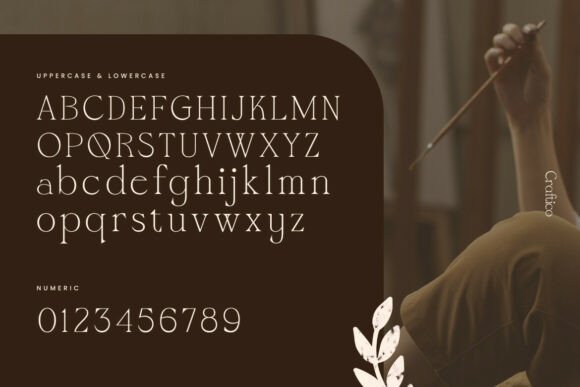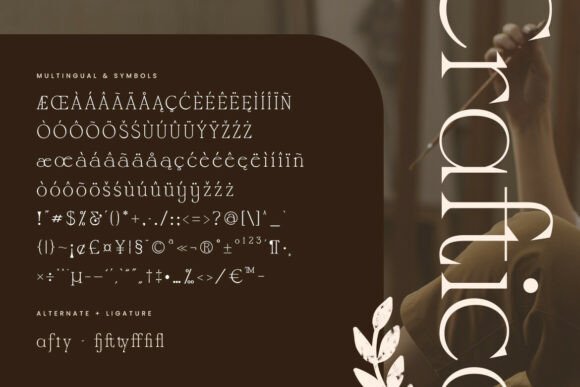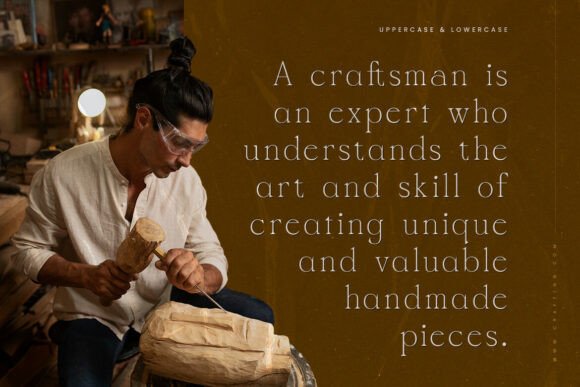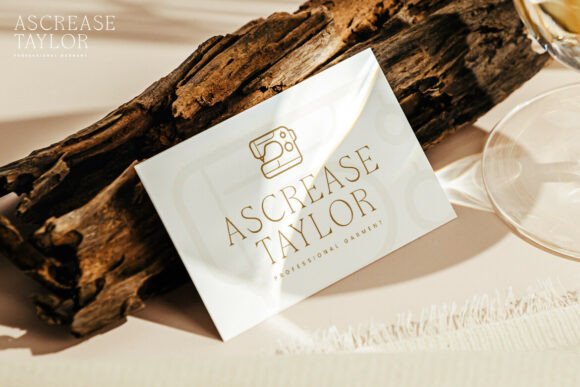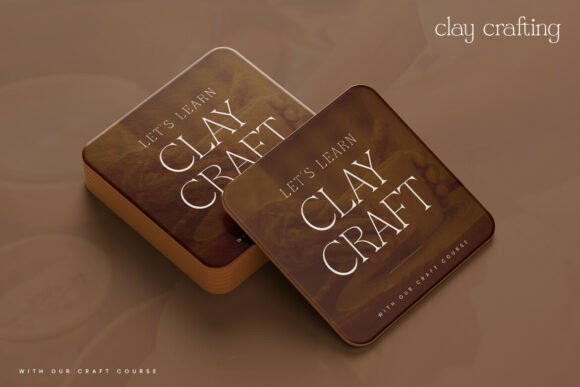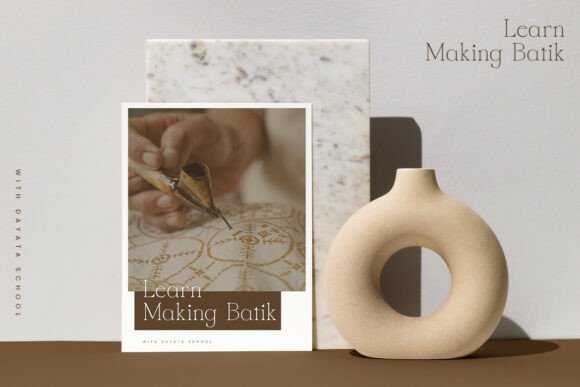
Craftico Font: Elevate Your Designs with Elegance and Sophistication
In the world of typography, fonts play a crucial role in conveying the tone and aesthetic of a design. For those seeking to infuse their projects with a sense of luxury, sophistication, and timeless elegance, Craftico Font emerges as an exceptional choice. This article introduces Craftico, an elegant serif font that is poised to become the cornerstone of your design endeavors, offering a perfect blend of classic beauty and modern appeal.
The Essence of Craftico Font
Craftico Font is meticulously crafted to bring a touch of luxury and grace to all your design projects. Its design is characterized by sleek lines, delicate serifs, and a graceful contrast between thick and thin strokes. This thoughtful design approach enables Craftico to exude a sophisticated aura that is both captivating and enduring. Whether you’re working on branding, advertising, packaging, or digital content, Craftico Font provides the perfect typographic solution to elevate your designs.
Key Features of Craftico Font
- Elegant Serif Design: Craftico boasts a classic serif design that lends an air of sophistication and refinement to any project.
- Sleek Lines and Delicate Serifs: The font’s sleek lines and delicate serifs contribute to its luxurious feel, making it ideal for high-end designs.
- Contrasting Strokes: The graceful contrast between thick and thin strokes in Craftico adds depth and elegance, ensuring your designs stand out.
- Timeless yet Modern: Craftico strikes a perfect balance between timeless classic beauty and modern typographic trends, making it versatile for various design applications.
Applications of Craftico Font
Craftico Font’s versatility and elegance make it suitable for a wide range of design projects. Here are some of the key areas where Craftico can make a significant impact:
- Branding and Logo Design: Use Craftico to create a lasting impression with a sophisticated and luxurious brand identity.
- Advertising and Marketing Materials: Elevate your advertising and marketing materials with a font that communicates elegance and refinement.
- Packaging Design: Add a touch of luxury to your product packaging, making it stand out on the shelves.
- Digital Content: Enhance your digital platforms, such as websites and social media, with a font that offers a perfect blend of classic and modern aesthetics.
Why Choose Craftico Font?
In a market flooded with numerous font options, Craftico Font distinguishes itself through its unique blend of elegance, sophistication, and versatility. Here are a few reasons why designers and crafters should consider Craftico for their projects:
- Unique Aesthetic: Craftico offers a distinct aesthetic that can help your designs stand out from the competition.
- High Versatility: The font’s design makes it suitable for a wide range of projects, from print to digital media.
- Easy to Read: Despite its elegant and delicate features, Craftico maintains excellent readability, ensuring your message is conveyed effectively.
Craftico Font is more than just a typeface; it’s a design statement that can elevate your projects to new heights of elegance and sophistication. With its sleek lines, delicate serifs, and the graceful contrast between thick and thin strokes, Craftico is poised to become your go-to font for designs that demand a touch of luxury and timeless beauty. Whether you’re a designer, a crafter, or a business looking to enhance your brand’s visual identity, Craftico Font is an excellent choice that promises to bring your creative visions to life.
Embark on a journey of creating stunning designs with Craftico Font. Experience the blend of classic elegance and modern sophistication that makes Craftico a valuable addition to your typographic arsenal.